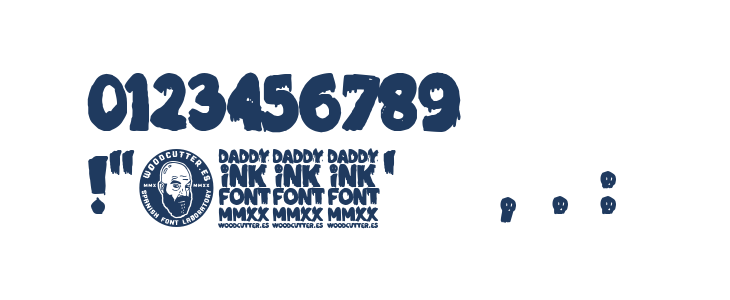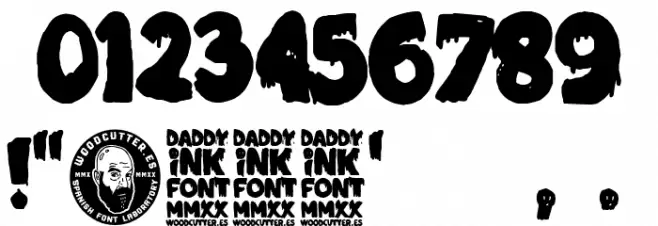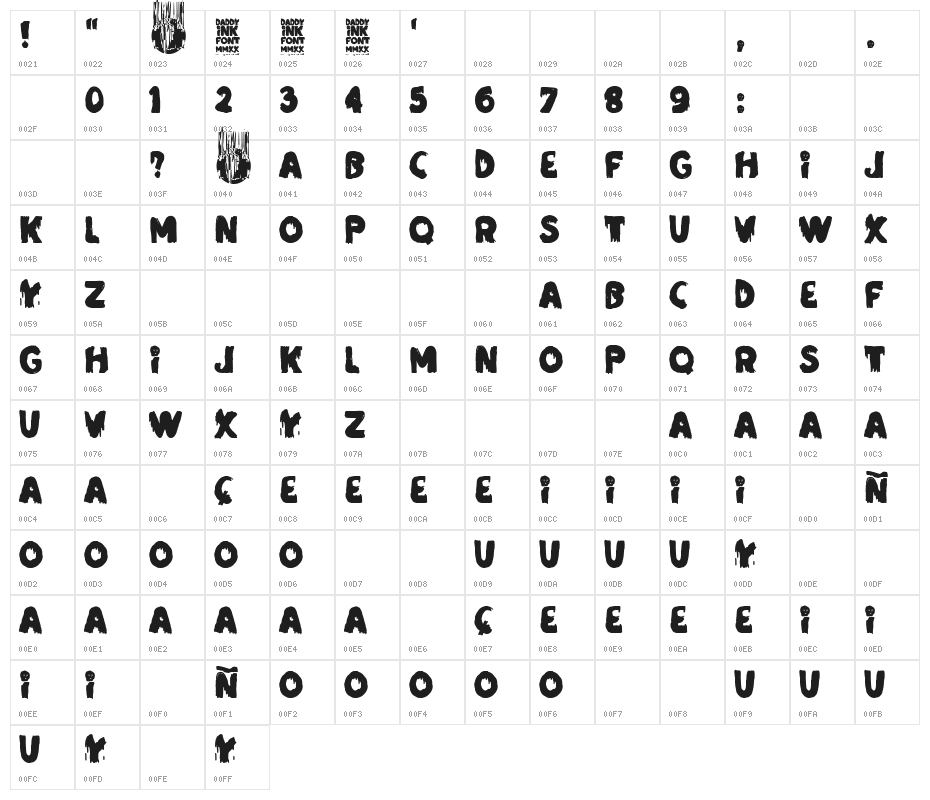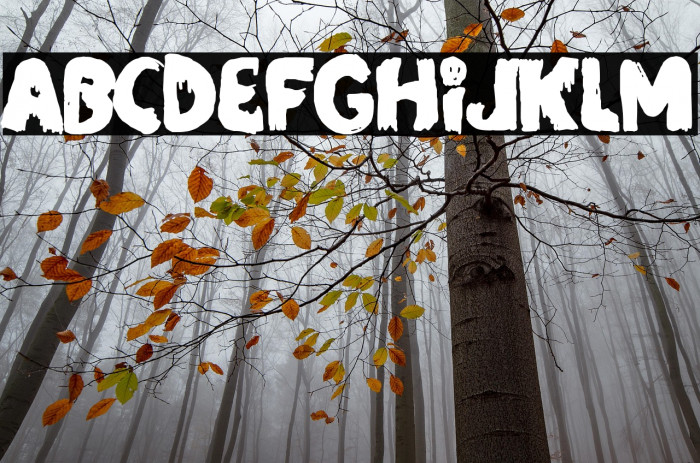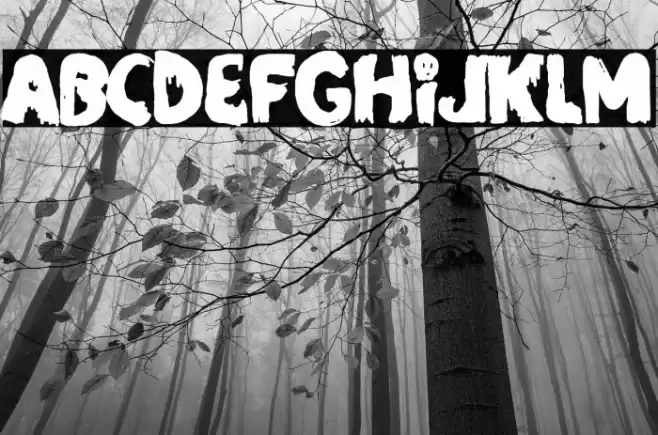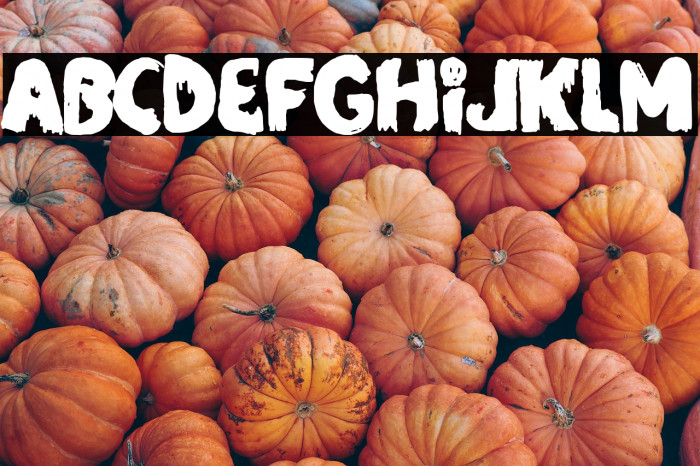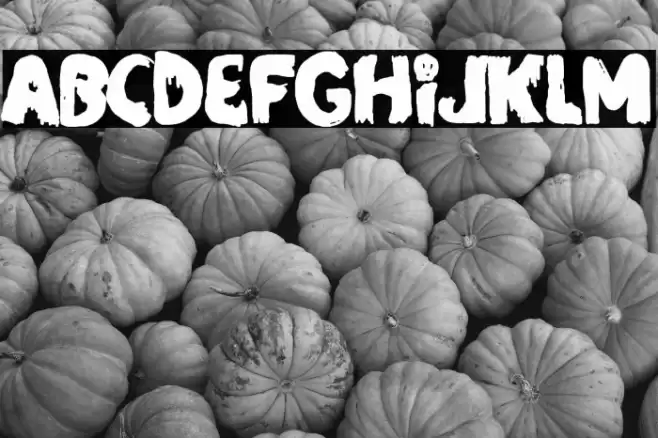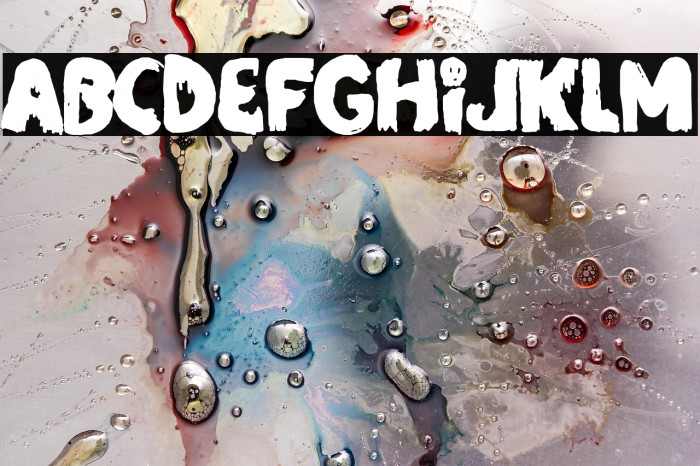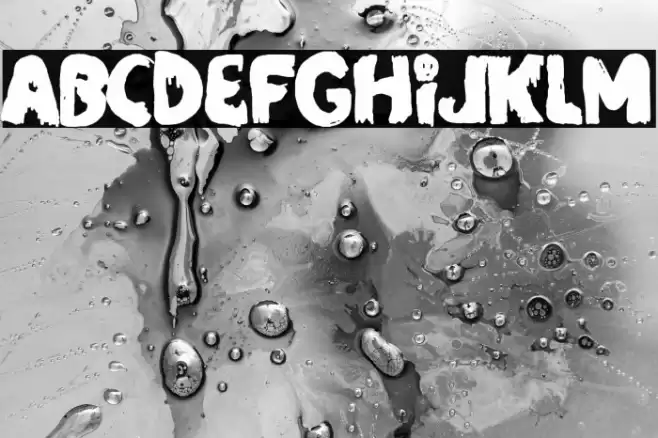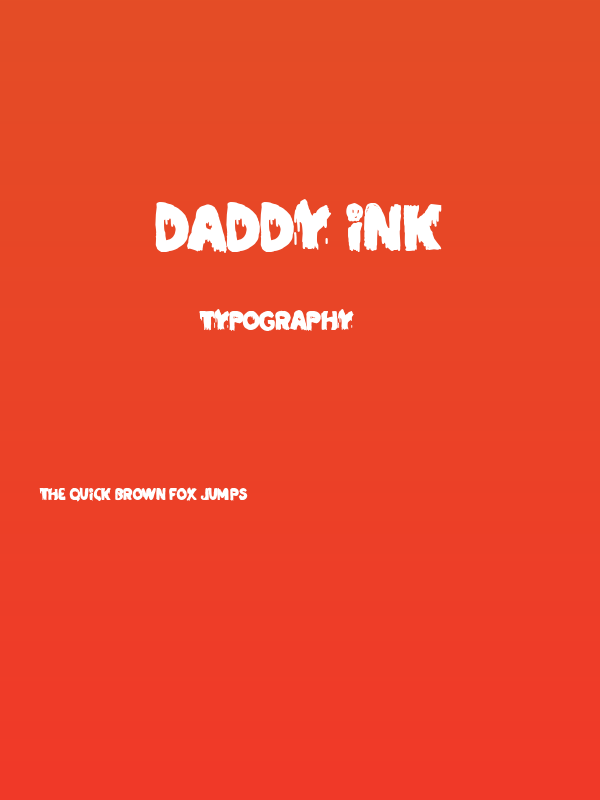
Daddy Ink Font
Daddy Ink Description
This font features a bold and expressive style with a hand-painted appearance. The characters have irregular edges and a slightly distressed look, giving them a raw and energetic feel. The uppercase and lowercase letters maintain a consistent weight, creating a cohesive and impactful visual presence. The numbers and special characters follow the same design, ensuring uniformity across all elements. This font is ideal for projects that require a strong and dynamic aesthetic, such as posters, album covers, or branding materials that aim to convey a sense of creativity and boldness.
| Proposed Projects | Perfect for posters, album covers, branding materials, and any project needing a bold, creative touch. |